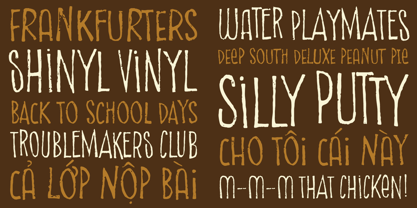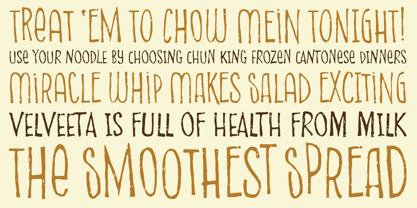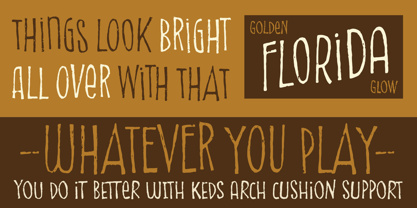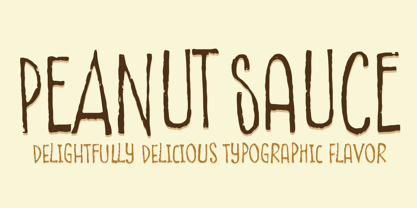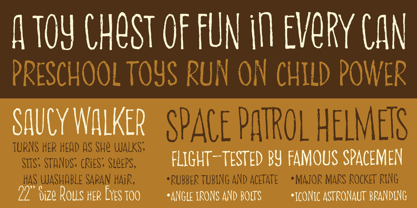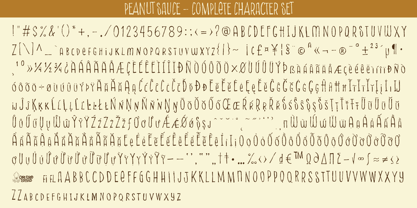
Peanut Sauce
by One Eyed Squid
The Peanut Sauce Font Family was designed by Brian J. Bonislawsky, Dave Cohen and published by One Eyed Squid. Peanut Sauce contains 1 styles.
Hand lettered and loose, you’ll find that Peanut Sauce adds a delightful new layer of flavor to anything! It’s a bit craggy, slightly off-kilter, and a tad tipsy. So when you need to season that bland old stuff just add a generous portion of Peanut Sauce! Capitals type well amongst themselves as the shortcaps lowercase characters type well amongst themselves - but mix them together for some true quirkiness.
(Peanut Sauce contains an extended Latin character set with added Vietnamese support.)
About One Eyed Squid
Dave "Squid" Cohen & Brian "Stiggy" Bonislawsky combine their fontmaking talents to bring you an array of fun and entertaining typefaces loaded with animated and diverse retro flavor.You may know Dave Cohen's fonts from Sideshow and Neapolitan type foundries, as you may know Brian Bonislawsky's fonts from Astigmatic (AOETI), Grype, Pink Broccoli, Monogram Fonts Co., Stiggy & Sands, and VersusTwin type foundries.So what is this foundry all about? It's all about bringing collaborative skills to bear to express more of their crazy typographic ideas and create even more exciting fonts to the design community.